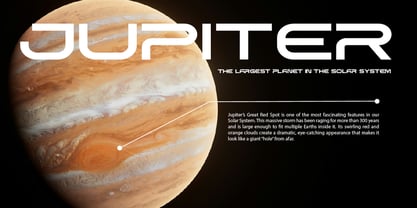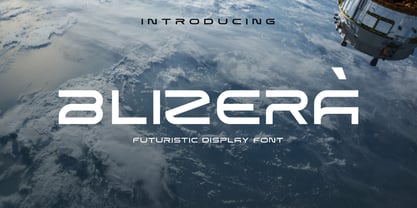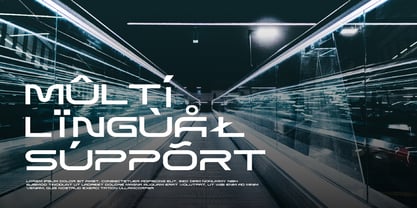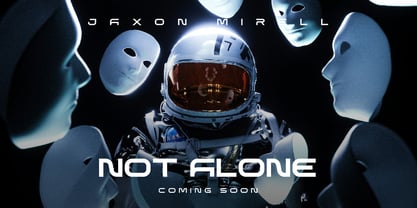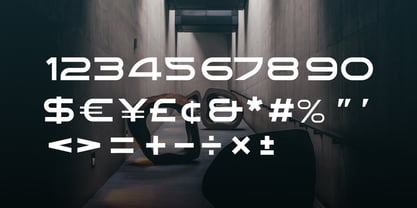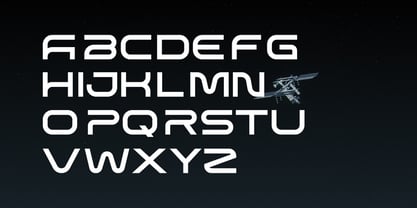
Blizera
by Yohanes Oktav
The Blizera Font Family was designed by Yohanes Oktavianus Aang and published by Yohanes Oktav. Blizera contains 6 styles and family package options.
Blizera is a futuristic geometric typeface built for bold visual statements. Inspired by space-age industrial design, its rounded modular construction creates a smooth yet highly technical rhythm. Clean curves, precise cut angles, and distinctive sci-fi letterforms make it ideal for logos, headlines, interfaces, and modern branding. The family includes Regular, Bold, Expanded, Italic, Bold Italic, and Expanded Italic styles, giving designers full flexibility across display applications. With multilingual support and consistent high-tech shapes, Blizera brings a sense of innovation and advanced engineering to any project, from tech startups and gaming UI to automotive graphics and aerospace visuals.
Designers: Yohanes Oktavianus Aang
Publisher: Yohanes Oktav
Foundry: Yohanes Oktav
Design Owner: Yohanes Oktav